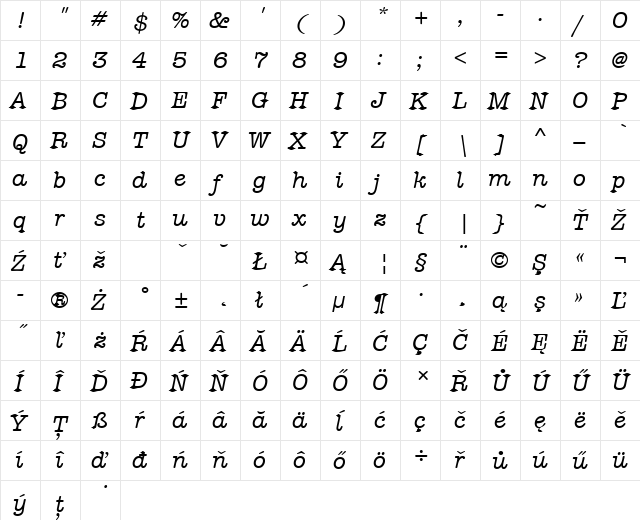
AmericanTypItcTEEMed Italic Font Preview
AmericanTypItcTEEMed Italic
AmericanTypItcTEEMed Italic Font Details
Design Context for AmericanTypItcTEEMed Typeface
AmericanTypItcTEEMed is a composed and adaptable typeface that performs quietly and consistently across a wide range of design contexts. Its italic angle brings a sense of urgency and motion to the letterforms.
Pro Tip: Use AmericanTypItcTEEMed for emphasis, pull quotes, and subheadings where its slanted energy can add rhythm to the layout.